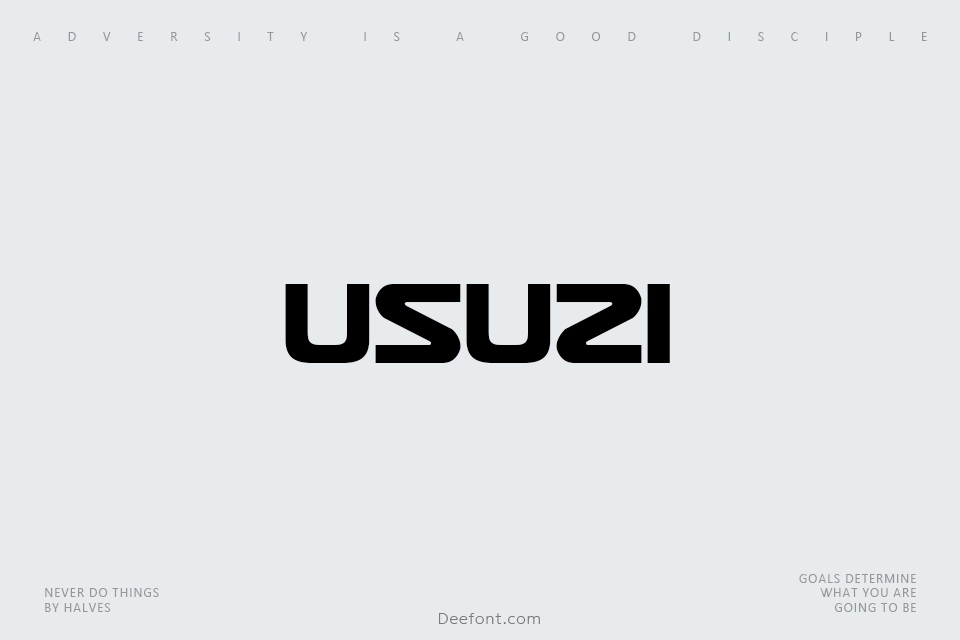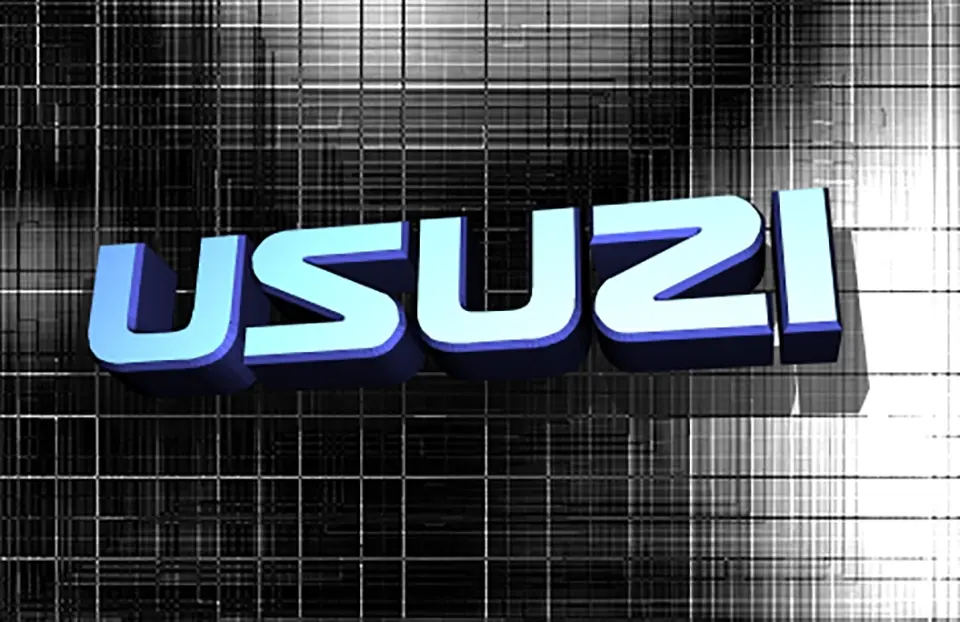
Usuzi Font
Usuzi is a bold, futuristic techno display font featuring geometric shapes and uniformly thick strokes that create a strong and modern appearance. With 17 comprehensive font file variations including regular, italic, bold, 3D, condensed, expanded, gradient, and halftone styles, this typeface is ideal for sci-fi projects, technology-focused designs, and contemporary branding. The font’s minimalist aesthetic and sharp, clean lines make it perfect for titles, headlines, and eye-catching typography that demands attention in digital and print media.